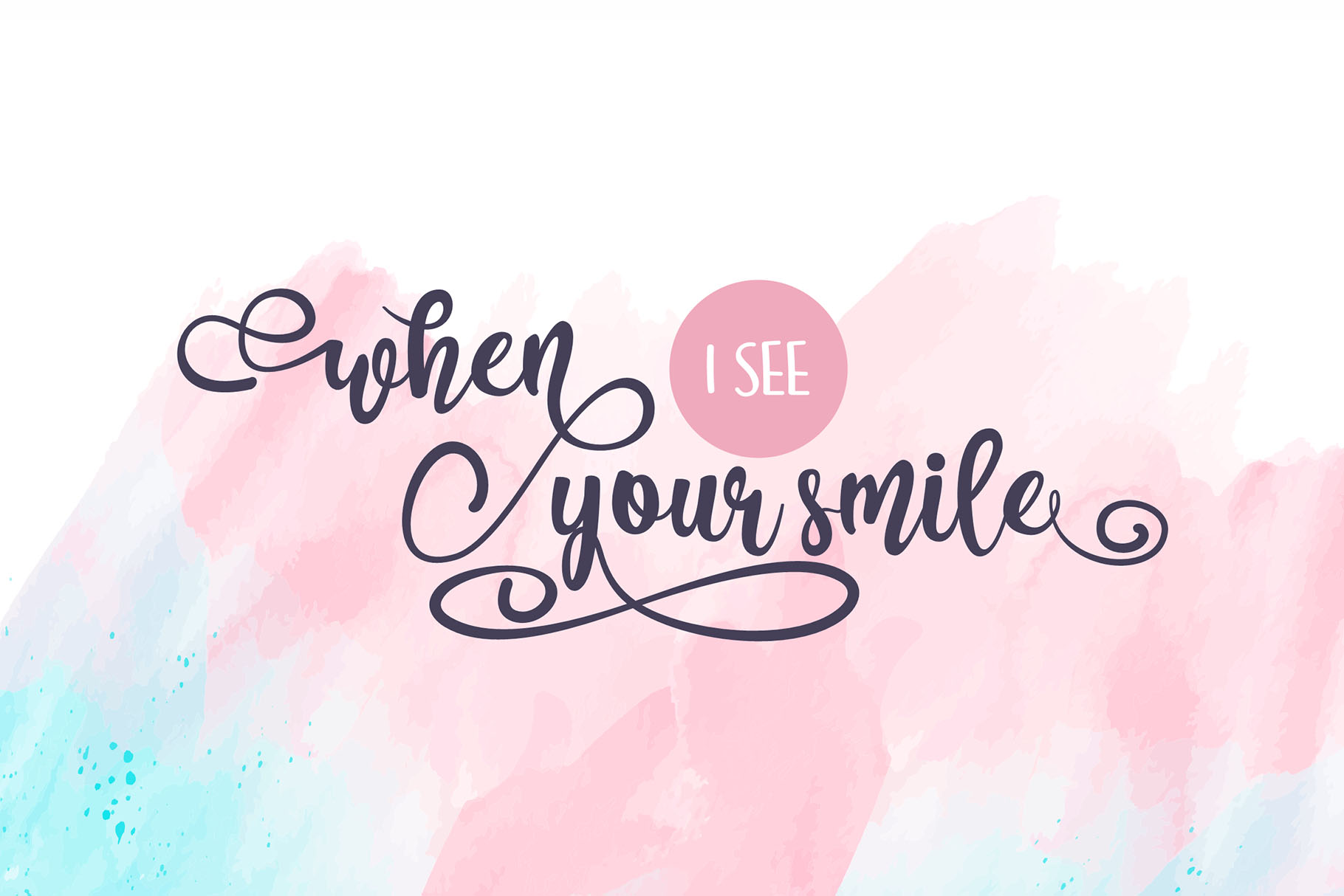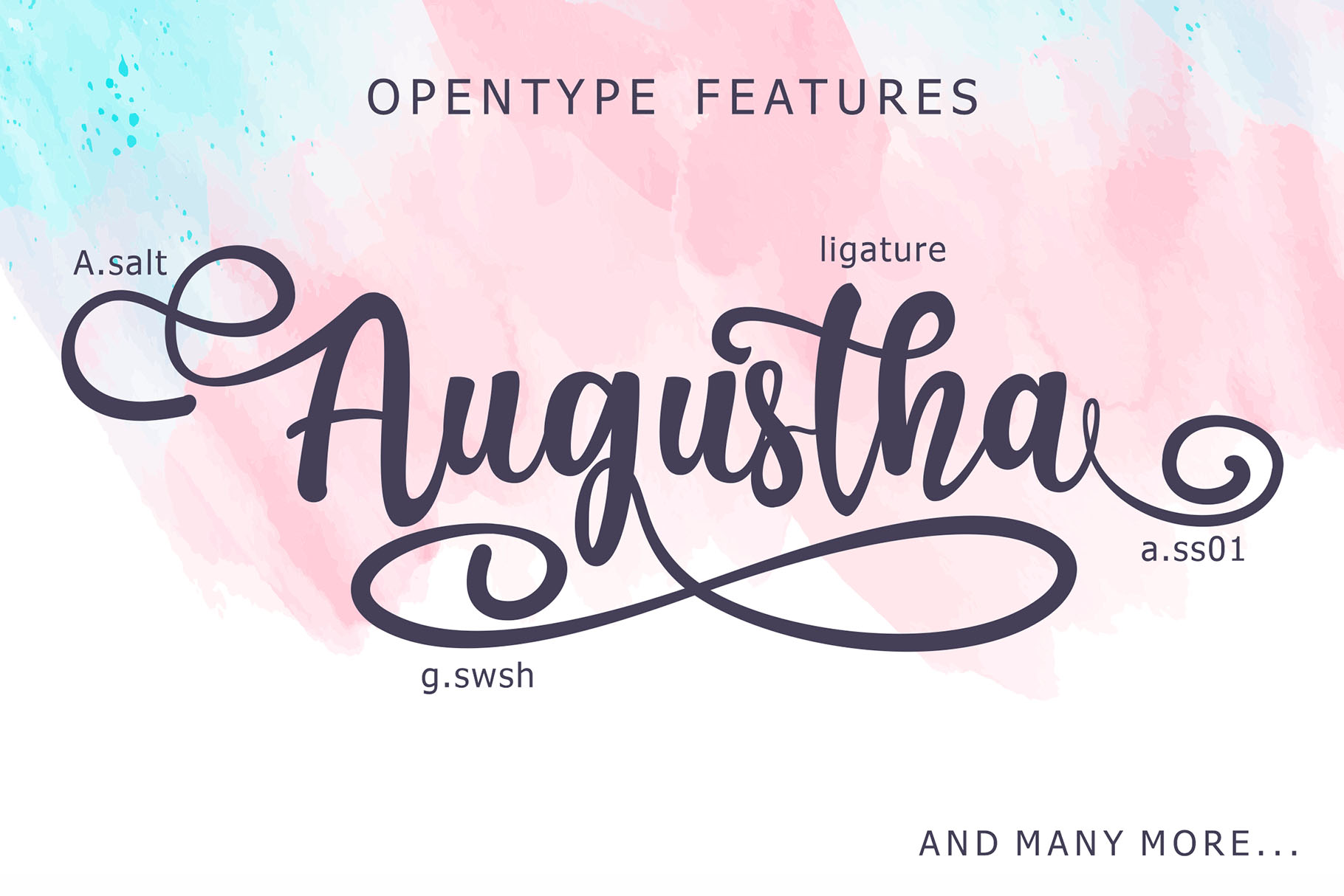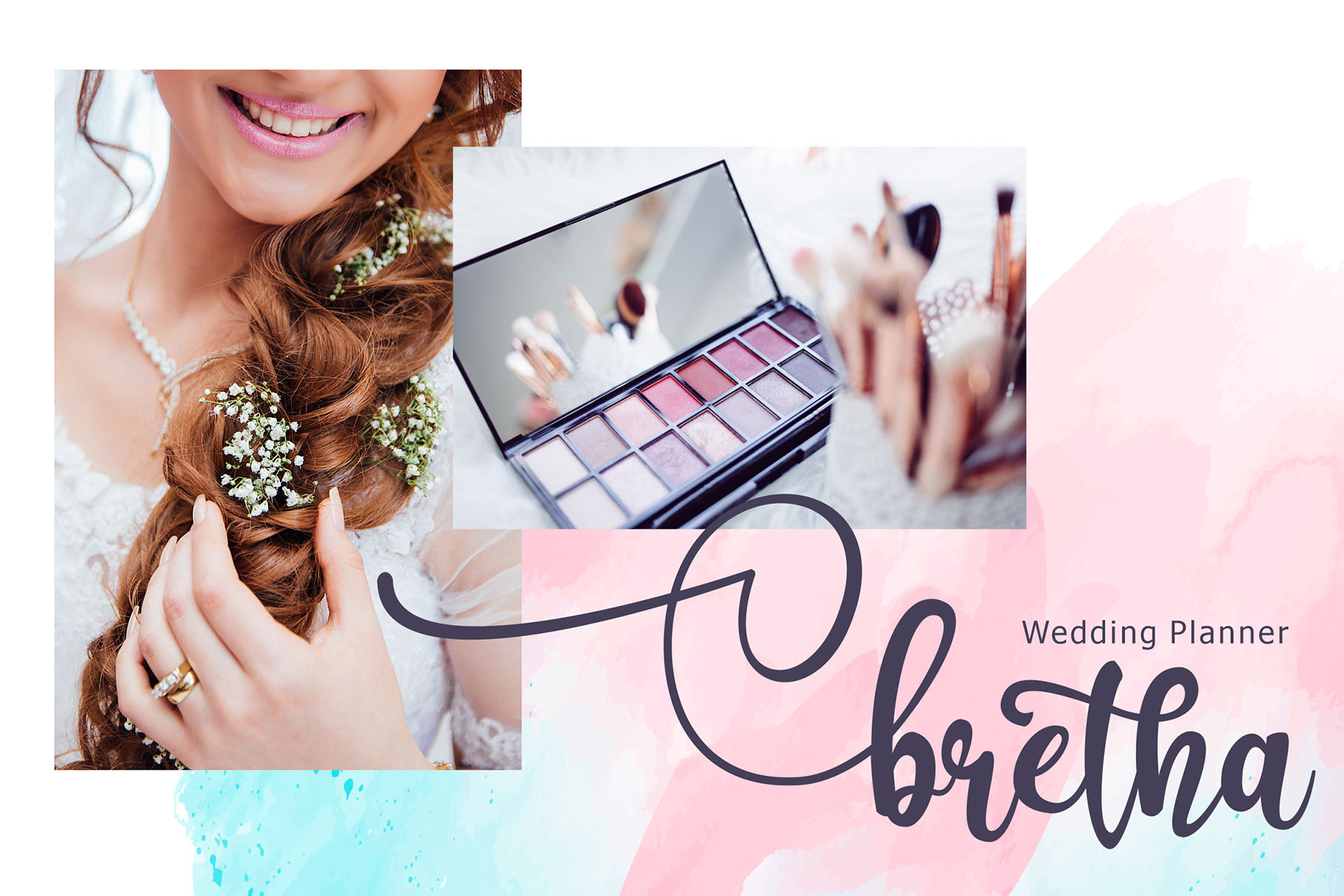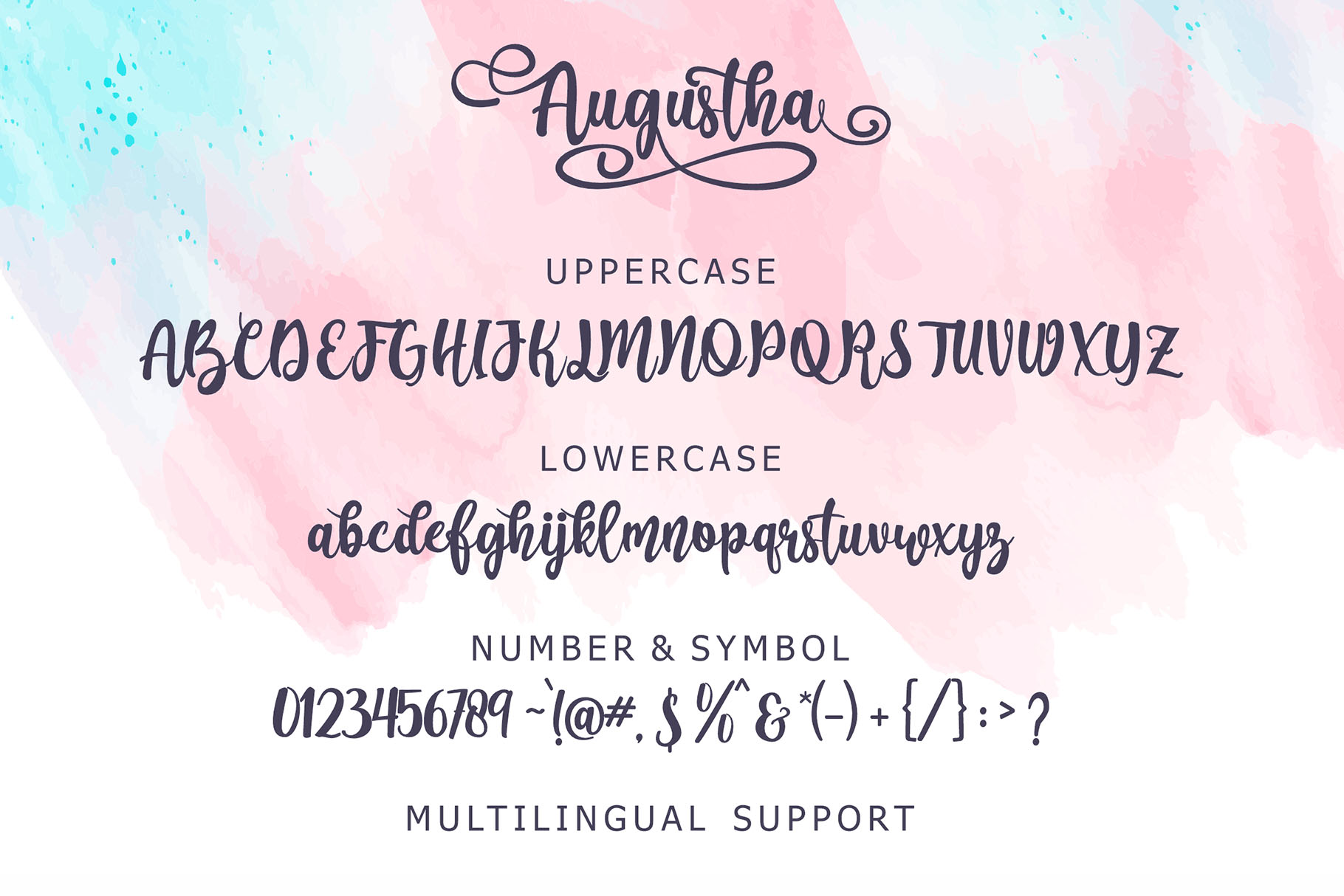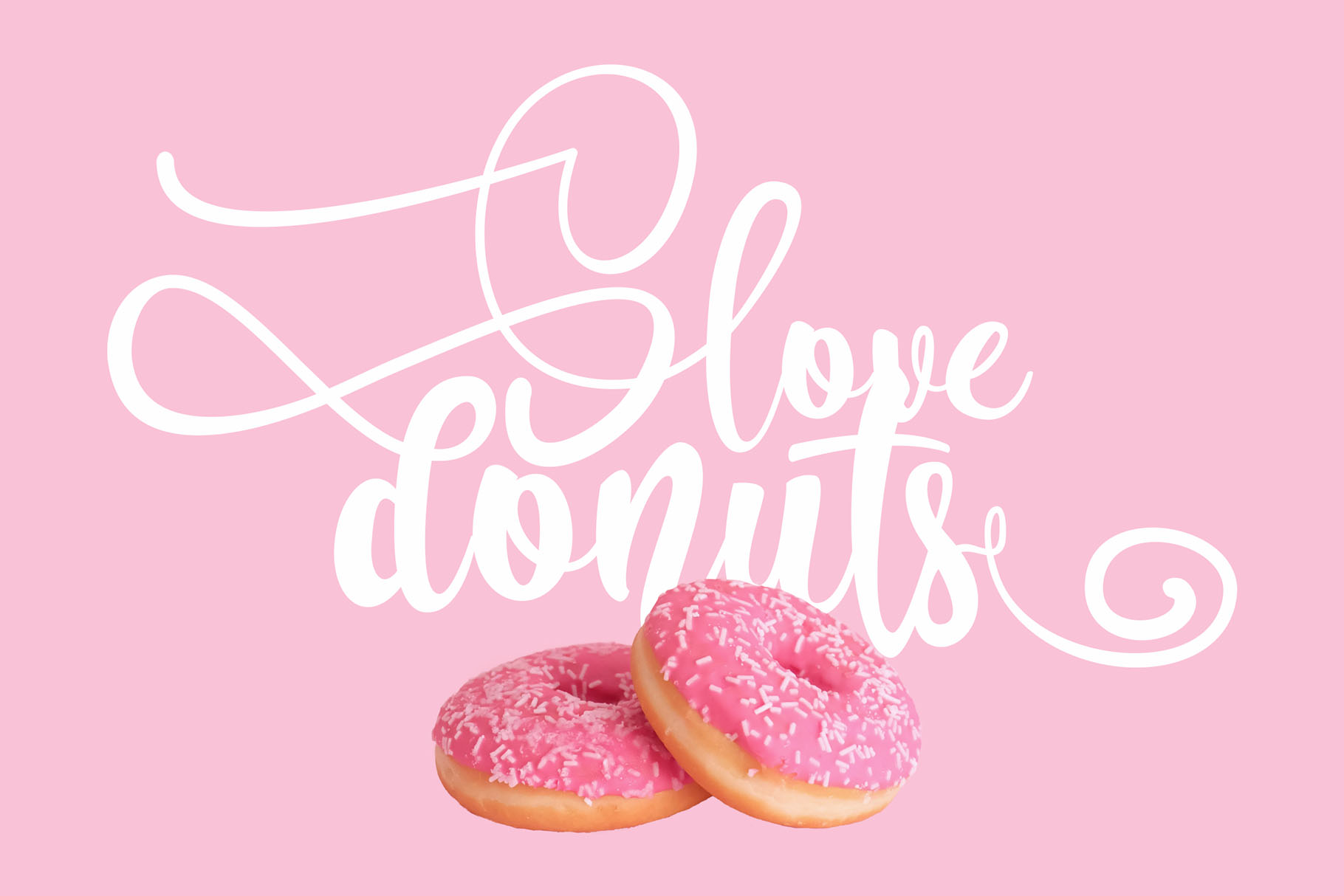
Augustha Lovely Handwritten Font for Elegant Creative Projects
Augustha lovely handwritten font is made for designers who want a script typeface with charm, elegance, and a strong visual presence. With its lovely script style and striking personality, Augustha helps your words feel expressive without becoming too loud or overly decorative.
This font is a great choice when your design needs a personal touch. It works beautifully for logos, clothing graphics, wedding invitations, posters, and many other creative projects where typography needs to feel original, graceful, and memorable.
For brand designers, Augustha can bring warmth to a logo or visual identity. For invitation designers, it can add a refined handwritten feeling to names, titles, and featured text. For apparel and merchandise creators, it gives lettering a stylish and expressive look that feels crafted rather than generic.
Augustha has a lovely script personality with an elegant and striking feel. Its handwritten character makes it especially useful for designs that need emotion, softness, and personality. Instead of feeling stiff or corporate, Augustha brings a natural sense of movement that can make a design feel more personal and intentional.
The overall mood is graceful, stylish, and creative. It can fit romantic projects such as wedding invitations, but it can also work for fashionable logo concepts, boutique branding, apparel designs, and editorial-style posters. This flexibility makes Augustha a useful script font for designers who need one typeface that can support many visual directions.
Its style is especially helpful when the main typography needs to become a focal point. Use it for a brand name, headline, product label, invitation title, quote artwork, or poster text. Augustha gives your wording a more expressive voice, helping the design feel more custom and refined.
Best Use Cases for Augustha Lovely Handwritten Font
Augustha lovely handwritten font is ideal for projects where elegance and personality matter. It can support both personal and commercial-style visuals, especially when the design needs a handwritten script look.
Use Augustha for logo designs that need a stylish signature feel. It can help boutique brands, fashion labels, beauty studios, handmade businesses, and creative entrepreneurs create a softer and more distinctive identity.
For wedding invitations, Augustha can be used for couple names, invitation headings, save-the-date cards, RSVP details, envelope designs, and romantic stationery layouts. Its script style helps add warmth and elegance to wedding-related design work.
For clothing and apparel graphics, Augustha can bring a crafted lettering look to shirts, tote bags, fashion tags, and lifestyle merchandise. It can also work well for posters, social media graphics, printable artwork, greeting cards, and other original designs where expressive typography is needed.
Key Features
• Lovely script font style
• Striking and elegant visual personality
• Designed for original creative designs
• Suitable for logos
• Suitable for clothing and apparel designs
• Suitable for wedding invitations
• Suitable for posters
Designers love Augustha because it gives creative work an elegant handwritten mood without making the layout feel too complicated. It is expressive enough to stand out, yet practical enough for a wide range of projects.
For logo designers, Augustha can help create a distinctive wordmark with a personal script feel. A font like this is useful when a brand needs to feel approachable, stylish, and memorable. It can support visual identities for boutiques, wedding businesses, personal brands, beauty services, handmade products, and creative studios.
For invitation designers, Augustha offers a romantic tone that fits wedding stationery and celebration designs. It can make names and headings feel more special, which is often exactly what clients want from custom invitation work.
For digital product sellers and crafters, Augustha can be used across printable designs, social graphics, posters, packaging concepts, and merchandise layouts. Its elegant script direction gives designs a polished finish while still feeling warm and human.
Pair Augustha with a clean or structured font to create contrast and improve readability. For a modern brand layout, try pairing it with Bolde, a powerful sans serif that can balance Augustha’s soft script personality with a stronger supporting text style.